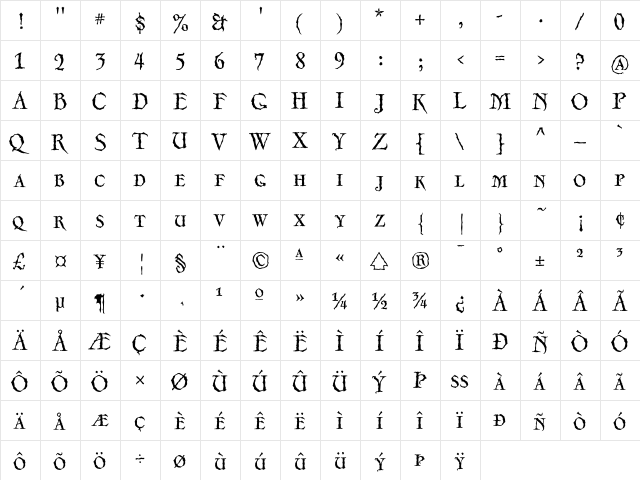
Merlin SmallCaps
Design Context for Merlin Typeface
Merlin is a composed and adaptable typeface that performs quietly and consistently across a wide range of design contexts.